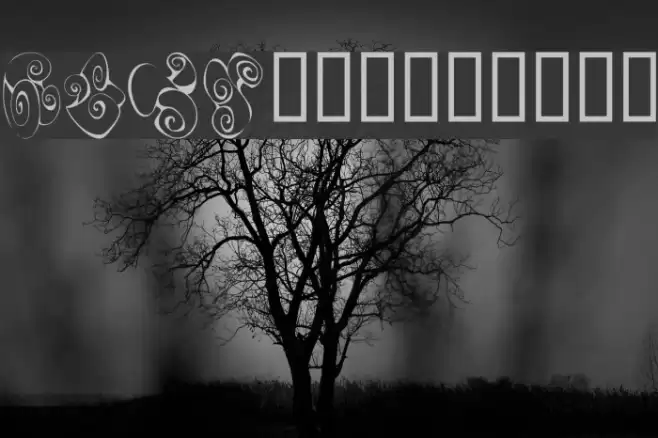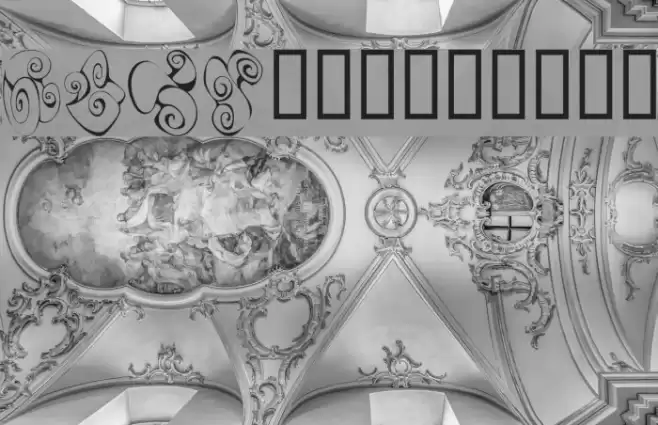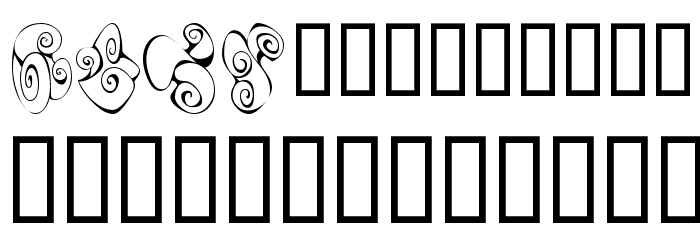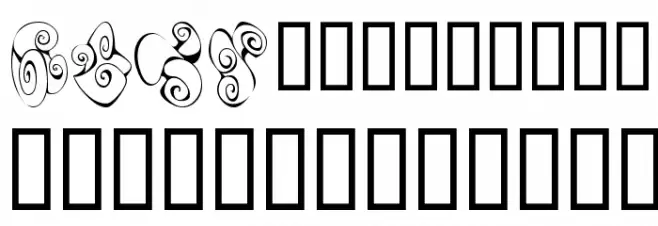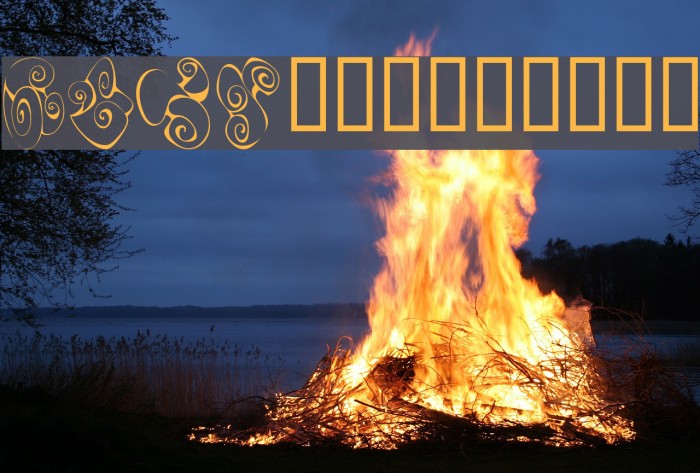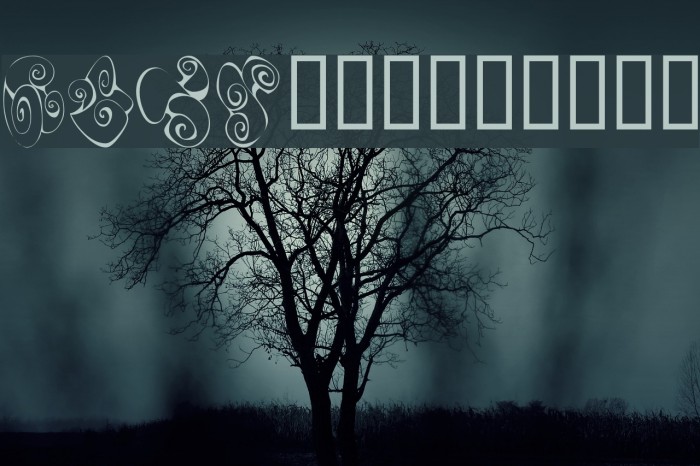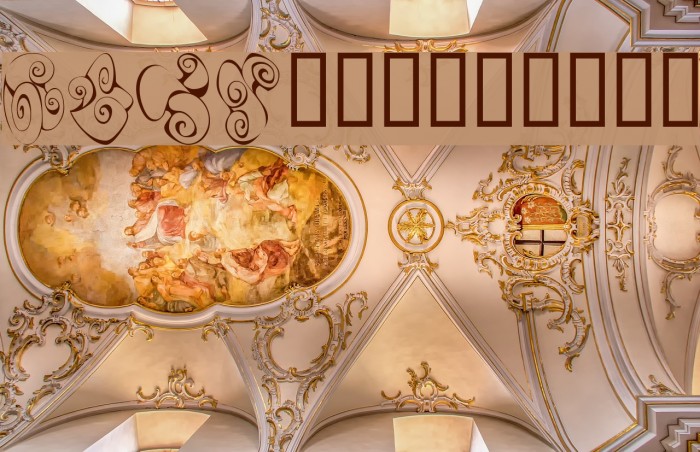
KR Fleur Flair 2 Font
KR Fleur Flair 2 Description
This font features an intricate and decorative design, characterized by swirling, floral motifs that create a whimsical and artistic appearance. Each character is adorned with elaborate curls and loops, giving it a unique, ornamental style. The font's playful and elegant nature makes it stand out, with its bold strokes and high contrast between thick and thin lines. The overall aesthetic is reminiscent of hand-drawn calligraphy, with a modern twist that adds a touch of sophistication and flair. Its distinctive look is perfect for projects that require a touch of creativity and elegance.
A decorative font with swirling, floral motifs and high contrast strokes from Uncategorized fonts.
- Proposed Projects: Ideal for wedding invitations, greeting cards, artistic posters, and branding that requires a whimsical touch.
- Use Case: Logos, Headlines, Artistic projects